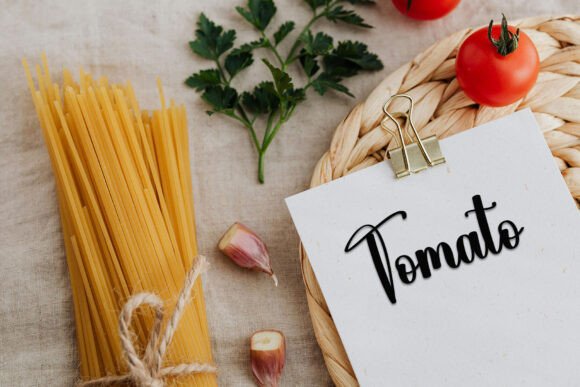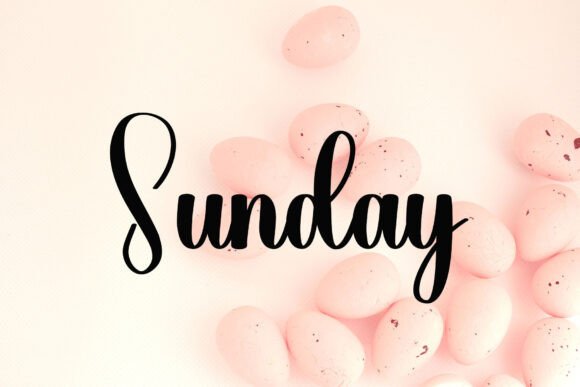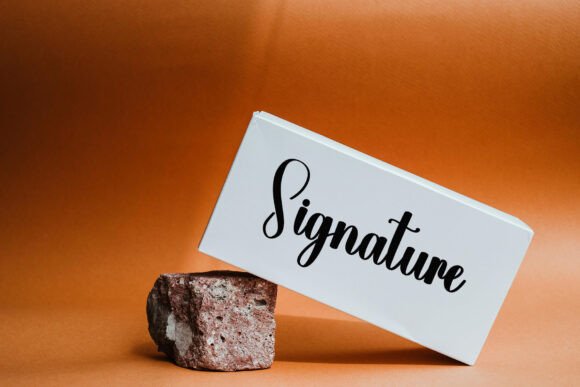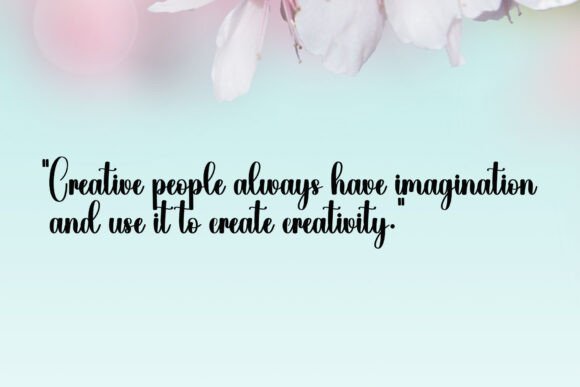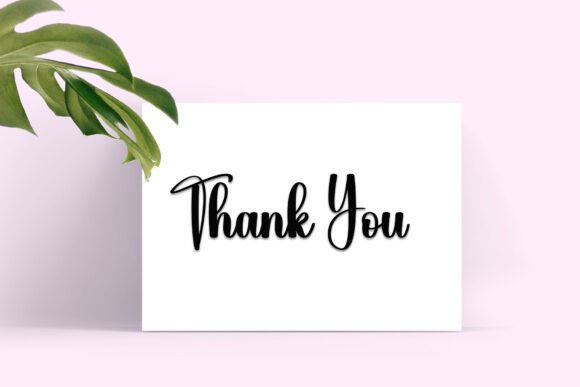
The Joy of the Holiday Season: Introducing Best Daddy Font
As the holiday season approaches, many designers are looking for the perfect font to capture the festive spirit and bring cheer to their designs. For me, it’s the moment when I’m brainstorming ideas for a holiday card, and I stumble upon the perfect font that sets the tone for the entire project. This year, I’m excited to share with you one of my favorite holiday fonts: the Best Daddy Font.
This delightful typeface is designed to evoke feelings of warmth, nostalgia, and joy. With its decorative elements and unique flair, the Best Daddy Font adds a touch of charm to any design. Whether you’re creating greeting cards, gift labels, or holiday-themed projects, this font is sure to bring a smile to your face and a dash of festive cheer to your words. And with its PUA coding, accessing all the amazing glyphs and ligatures is a breeze!
Key Features of “Best Daddy Font”
- Unique Characteristics: The font features a playful, cursive design with a modern twist, perfect for creating a friendly and approachable atmosphere
- Legibility: The font is highly legible in both print and digital formats, making it suitable for a wide range of applications
Review: Best Daddy Font
First off, I have to say that I was a bit skeptical about reviewing the “Best Daddy Font” – it sounds like a gimmick, right? But, I decided to give it a shot and see what I thought. ✨
- Fun and playful vibe – perfect for a family-owned business or a design project that needs a bit of whimsy.
- Wide range of font weights and styles, making it easy to customize to your needs.
- Good legibility, even at smaller font sizes.
- May not be suitable for formal or professional designs – it’s a bit too playful for that.
- Not as versatile as some other fonts, in terms of pairing with other fonts or color schemes.
- May not be the best choice for text-heavy designs, as it can be a bit overwhelming.
Overall, I think the “Best Daddy Font” is a fun and quirky addition to any design project. While it may not be the most versatile font, it’s perfect for the right kind of project – and it’s definitely a conversation starter! ⚠️
Best Daddy Font is a versatile font that can be used in various design contexts, including:
Alternatives to Best Daddy Font for Designers
Lato is a modern sans-serif font that is highly legible and versatile. It’s ideal for use in digital products, web design, and mobile applications. Lato is a great alternative to Best Daddy Font as it offers a similar clean and minimalistic feel, but with a more refined and sophisticated look.
Open Sans is a popular and highly legible sans-serif font that is suitable for a wide range of applications, including digital products, web design, and print materials. Compared to Best Daddy Font, Open Sans has a more neutral and calm tone, making it a great choice for use in corporate branding and other professional contexts.
Montserrat is a geometric sans-serif font that is inspired by the urban landscape of Montserrat, Argentina. It’s a great choice for use in digital products, web design, and mobile applications, particularly when a modern and edgy look is desired. Compared to Best Daddy Font, Montserrat has a more dramatic and striking feel, making it a great alternative for use in creative and innovative projects.